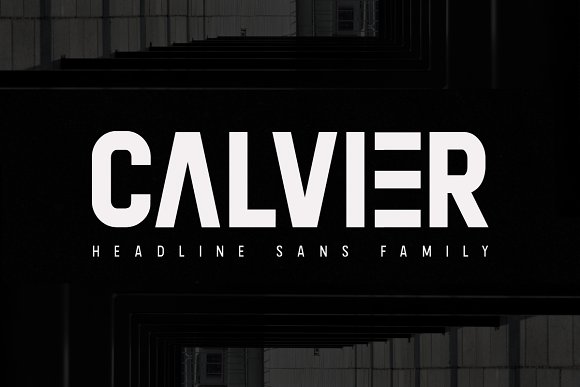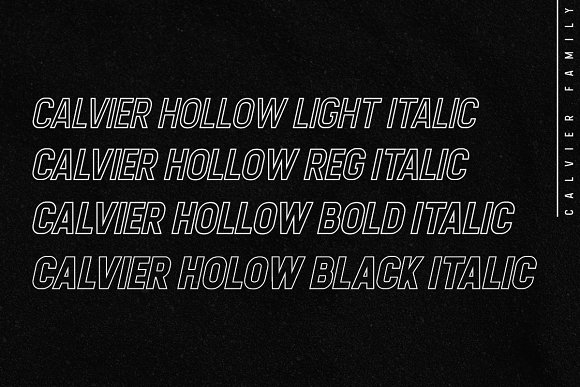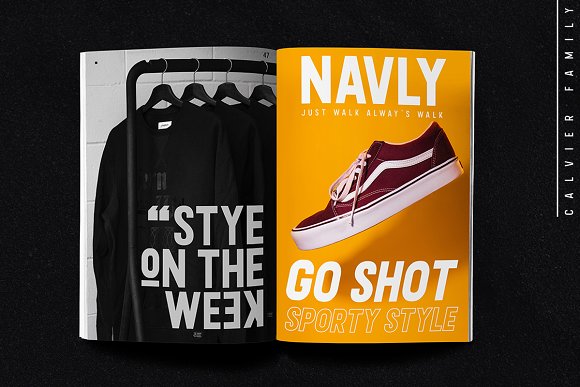
Calvier Headline Sans Font
Introducing Calvier Headline Sans Family ,Designed for an impactful and stylish visual impression especially on Headline,logos and posters. Calvier’s has semi humanist and semi geometric details and extensive language support Calvier’s have four weights Regular,italic and hollow style Calvier Sans Family makes a strong impression in print, video,headlines and social media – always be the best choice and easy to read clear and comfortable whether he is paired or stand alone as the main topic in your design.